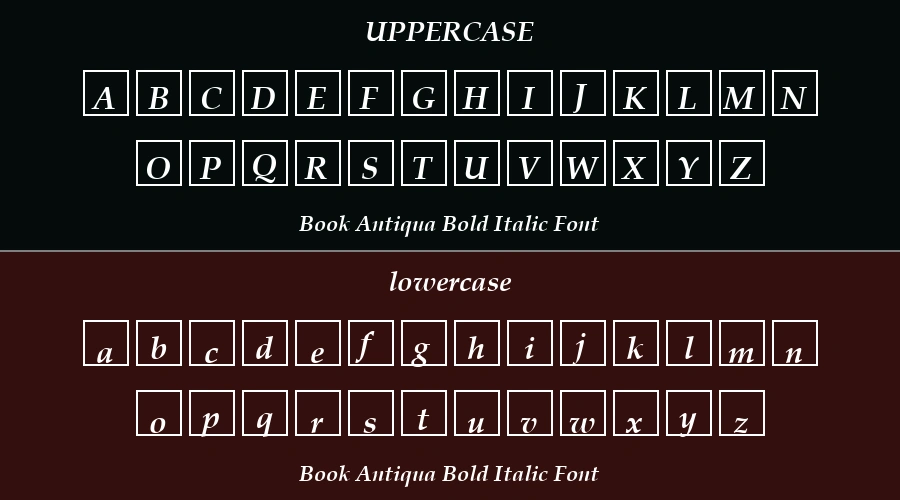
About Book Antiqua Bold Italic Font
Designed with precision, Book Antiqua Bold Italic Font merges dramatic weight with expressiveness in every character. This versatility makes it particularly effective for environmental graphics, where originality and market credibility directly impact communication quality. Each letterform demonstrates meticulous craftsmanship.
Technical excellence shines through elements like humanist proportions and arbitrary fractions, enhancing typographic versatility. In specification sheets settings, Book Antiqua Bold Italic Font proves its worth through superior brand recognition. The thoughtful execution of apex design and market positioning ensures professional results.